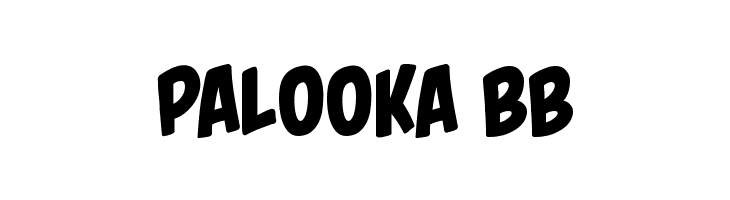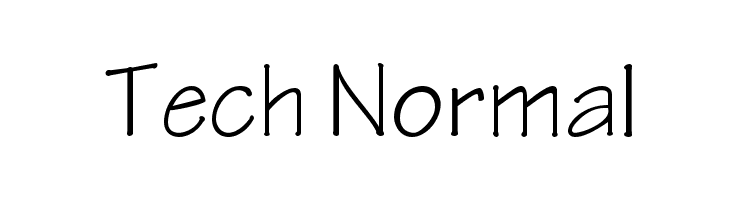
Chaque police phare se distingue par équilibre, lisibilité et polyvalence. Vous trouverez des sans‑serifs modernes, des scripts élégantes, des serifs vintage et des displays minimalistes.
A bold, decorative font with a dotted outline pattern and a cursive-like slant.
A bold, distressed font with jagged edges and a grungy appearance.
A modern, geometric font with sharp, angular lines and a futuristic aesthetic.
A modern, expanded italic font with geometric and dynamic letterforms.
A bold, playful font with rounded strokes and a friendly appearance.
A playful, hand-drawn font with tall, narrow characters and a quirky style.
A bold, stencil-like font with high contrast and sharp angles.
A bold, brush-style font with an energetic, street-art vibe.
A bold, striped font with a modern and playful geometric design.
A modern sans-serif font with a clean, balanced design and smooth curves.
A bold, angular font with a modern, geometric style.
A bold, high-contrast serif font with dramatic and elegant features.
An ornate and decorative font with calligraphic influences, perfect for elegant designs.
A playful, whimsical handwritten font with fluid, continuous strokes.
A playful, handwritten font with bold, rounded strokes.
A whimsical, curly serif font with playful swirls and loops.
A bold, futuristic font with geometric shapes and angular lines.
A bold, condensed, and italic font with a modern, angular design.
A playful, hand-drawn font with a bold and whimsical style.
A playful, rounded font with a bold and friendly style.
Casual handwritten script font.
A playful, rounded font with a bold and friendly appearance.
An ornate, calligraphic font with vintage flair and decorative elements.
Quelles sont les polices les plus populaires en ce moment ?
Poppins, Roboto, Montserrat, Open Sans et Lato sont plébiscitées pour leurs formes nettes et leur large applicabilité — de l’identité de marque aux pages d’atterrissage et affiches.